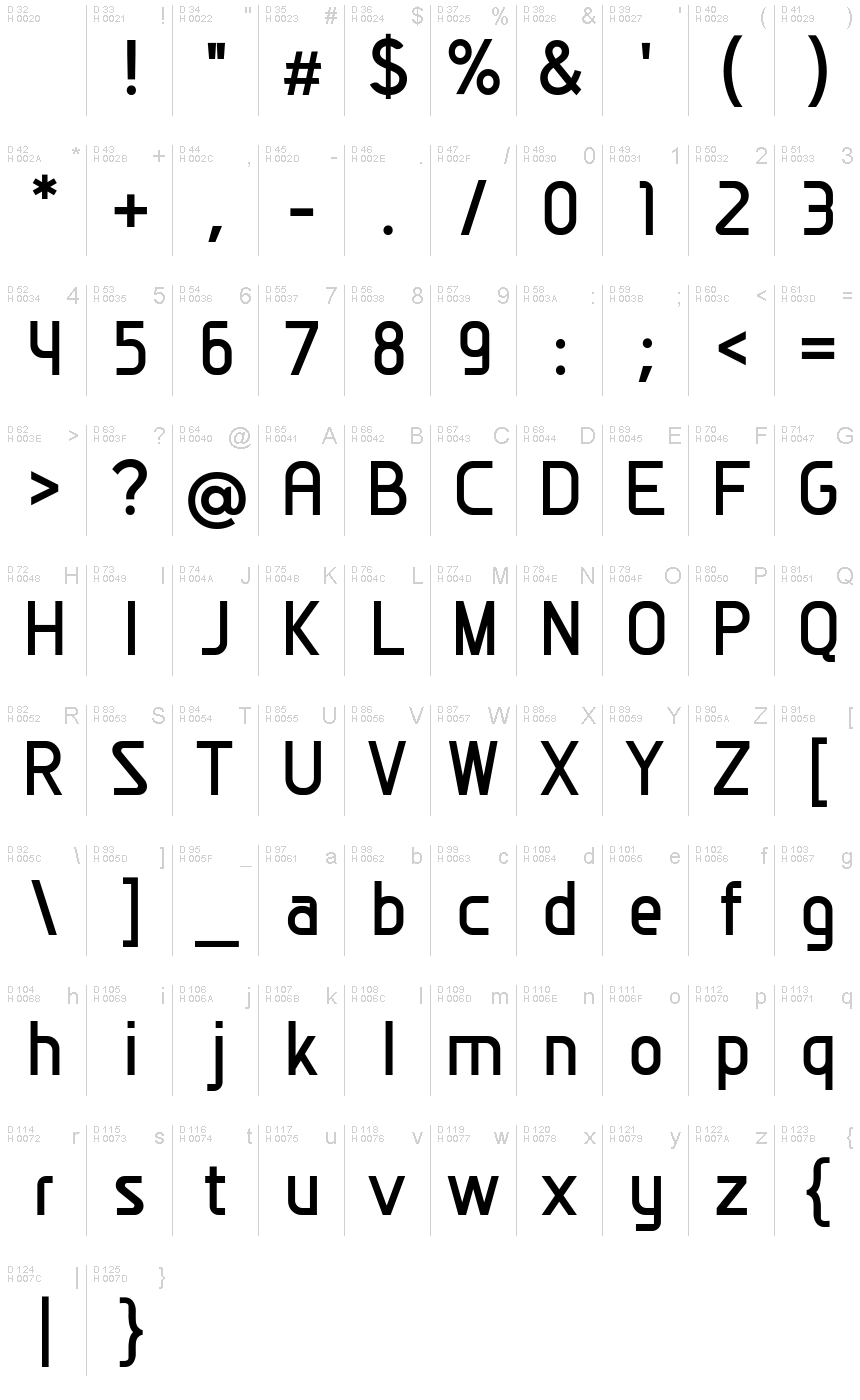
REMIXABLE
The Remixable font by UI Creative exudes a sophisticated and modern aesthetic. With its clean lines, subtle curves, and balanced proportions, this sans serif typeface seamlessly blends simplicity and elegance. The sharp, geometric letterforms evoke a sense of clarity and precision, while the slightly rounded edges lend a touch of warmth and approachability. Remixable's versatile character set offers a harmonious balance between legibility and visual interest, making it a compelling choice for a wide range of design applications.
Remixable's versatility shines through its adaptability to diverse design contexts. Its refined, minimalist style lends itself beautifully to branding and identity projects, lending a timeless, professional appeal. The font's legibility and neutral tone also make it an excellent option for editorial and publishing design, where readability and clarity are paramount. Additionally, Remixable's modern sensibility and subtle personality can elevate digital interfaces, presentations, and marketing materials, delivering a polished and cohesive visual experience.